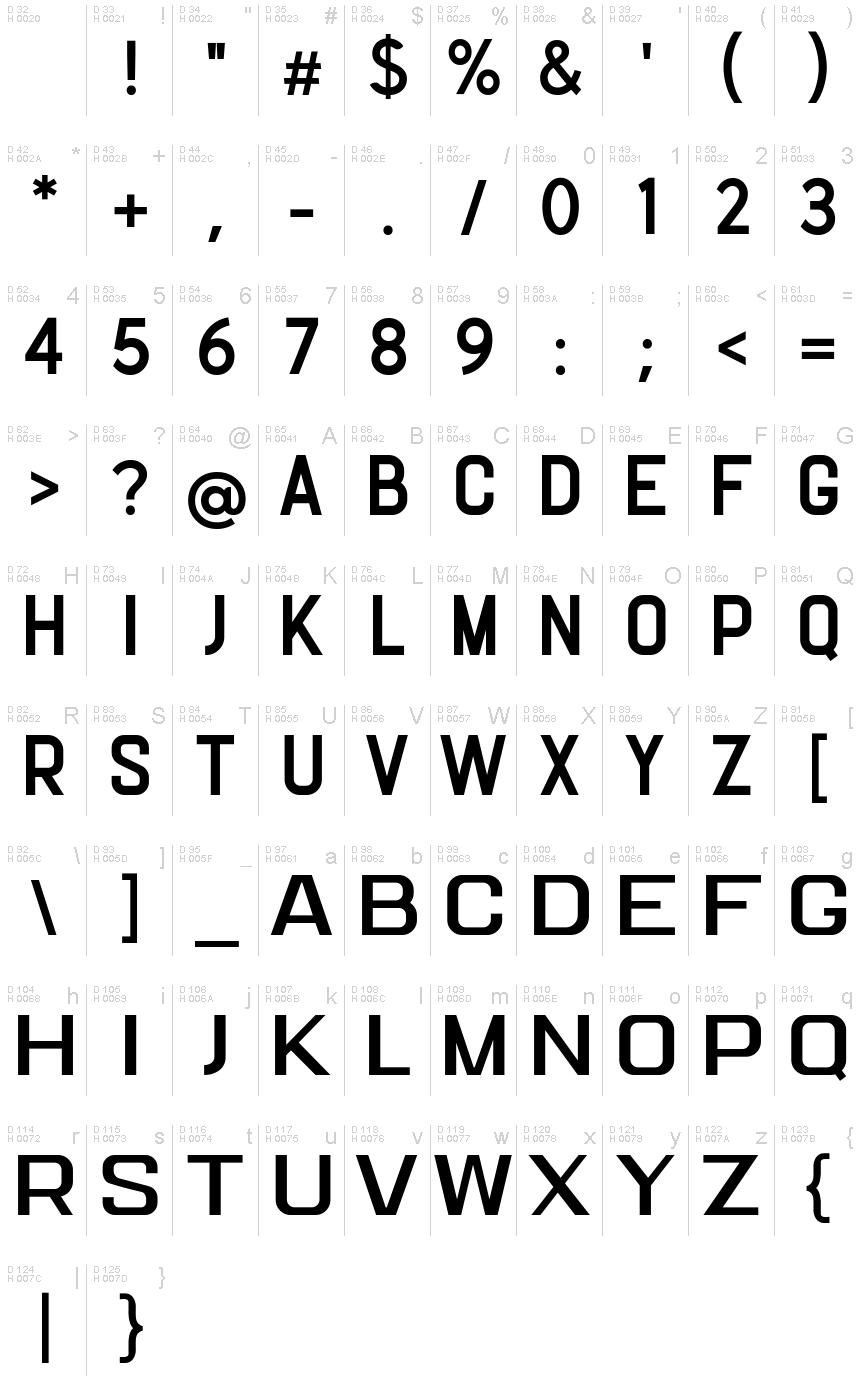
LANGOSTIONS
Langostions font by UI Creative is a striking sans serif that captivates with its bold, modern aesthetic. Its clean lines and balanced proportions make it perfect for contemporary design projects seeking clarity and sophistication. This free font offers designers a versatile tool for both digital and print media.
Langostions shines in branding, headlines, and advertising thanks to its strong presence and readability. Whether you're crafting eye-catching posters or sleek web layouts, this font's distinctive style ensures your message stands out.